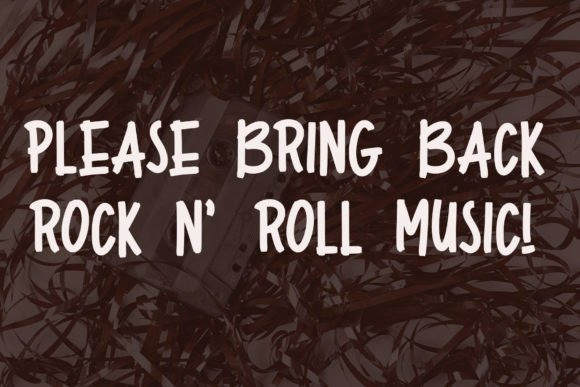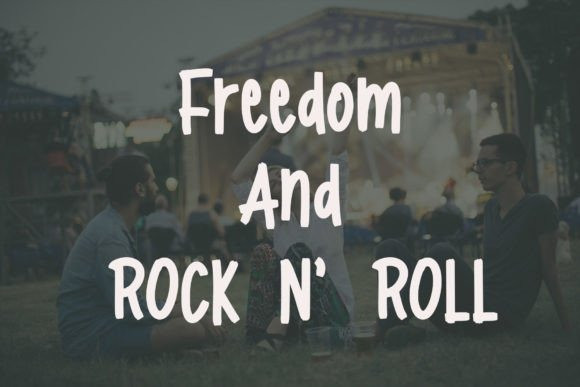
Evidance Display Font
Evidance is a cool and neat display font. It will elevate a wide range of crafting ideas, from cards, to branding, labels and much more.
Add it confidently to your favorite creations and let yourself be amazed by the outcome generated.